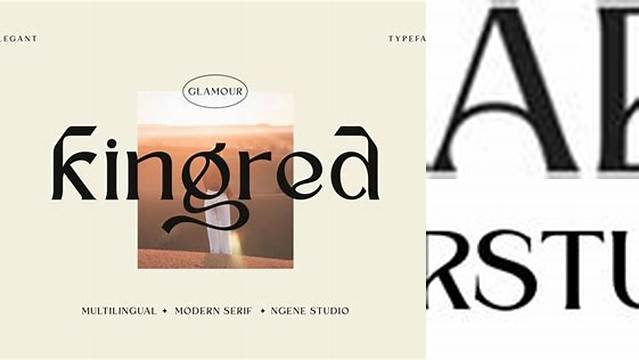
Hey guys! Are you on the hunt for a sophisticated and elegant serif font to elevate your design projects? Look no further! In this article, we're diving deep into the world of Kingred Serif, a stunning typeface that can add a touch of class to any creative endeavor. We'll explore what makes Kingred Serif so special, where you can find it for free download, and how to best utilize it in your designs. So, buckle up and get ready to discover the beauty and versatility of Kingred Serif!
Kingred Serif is more than just a font; it's a statement. This typeface exudes elegance and sophistication, making it a perfect choice for projects that demand a touch of class. Its clean lines, balanced proportions, and subtle serifs give it a timeless appeal that works beautifully in both print and digital media. The Kingred Serif font family typically includes various weights and styles, from light and regular to bold and italic, providing you with a versatile toolkit for all your design needs. Imagine the impact of a beautifully designed wedding invitation, a professional corporate brochure, or a captivating book cover – Kingred Serif can help you achieve that and more.
Kingred Serif's distinguishing features lie in its delicate serifs and the subtle variations in stroke weight, which give it a refined and polished appearance. The letterforms are carefully crafted to ensure readability and visual harmony, making it a pleasure to work with. Whether you're designing a logo, crafting headlines, or setting body text, Kingred Serif's versatility shines through. It's a font that commands attention without being overly flashy, making it an excellent choice for projects that need to convey a sense of authority and trustworthiness. The classic elegance of Kingred Serif makes it a favorite among designers who appreciate timeless typography.
The beauty of Kingred Serif also lies in its adaptability. It can seamlessly blend with different design styles and themes, from traditional to modern. Pair it with a minimalist layout for a clean and sophisticated look, or use it in a more ornate design to enhance its classic appeal. The font's versatility allows you to experiment and create unique visual identities that resonate with your target audience. Furthermore, Kingred Serif's legibility is a crucial aspect, making it suitable for a wide range of applications, including websites, magazines, and branding materials. You can confidently use Kingred Serif knowing that it will deliver a polished and professional look.
Now, you might be wondering, “Why should I choose Kingred Serif over other serif fonts?” That's a great question! The answer lies in its unique blend of elegance, versatility, and readability. Kingred Serif stands out because it manages to be both sophisticated and approachable, making it a fantastic choice for a wide range of projects. Its clean lines and subtle serifs give it a timeless quality that never goes out of style. Whether you're working on a branding project, a website design, or a print layout, Kingred Serif can help you create a polished and professional look.
One of the primary reasons to opt for Kingred Serif is its readability. In the realm of typography, clarity is paramount, and Kingred Serif excels in this regard. The letterforms are designed with careful attention to detail, ensuring that each character is easily distinguishable. This is particularly important when setting body text, as readability can significantly impact the user experience. Imagine reading a lengthy article or report set in a hard-to-read font – it can be quite frustrating! With Kingred Serif, you can rest assured that your text will be legible and enjoyable to read, regardless of the font size or medium. The font’s superior readability makes it an excellent choice for both digital and print applications.
Moreover, the versatility of Kingred Serif cannot be overstated. It’s a font that can adapt to various design styles and aesthetics. Whether you’re aiming for a classic, traditional look or a modern, minimalist vibe, Kingred Serif can seamlessly integrate into your vision. Its adaptability makes it a valuable asset in any designer's toolkit. For instance, it works beautifully for headlines, subheadings, and body text, providing consistency and visual harmony across your designs. You can pair it with a sans-serif font for contrast or use it exclusively for a cohesive and elegant feel. The Kingred Serif font's adaptability ensures that it remains a relevant and powerful choice for a wide range of projects, from print materials to digital interfaces.
Remember, the key to using any font effectively is to understand its strengths and leverage them to enhance your overall design. Kingred Serif is no exception. Its timeless elegance and versatility make it a perfect choice for a wide range of projects, from branding and logo design to web design and print materials. By following the tips and suggestions we've discussed in this article, you can confidently incorporate Kingred Serif into your designs and achieve remarkable results. So, go ahead and download Kingred Serif for free today, and let your creativity soar! Thanks for reading, and happy designing!